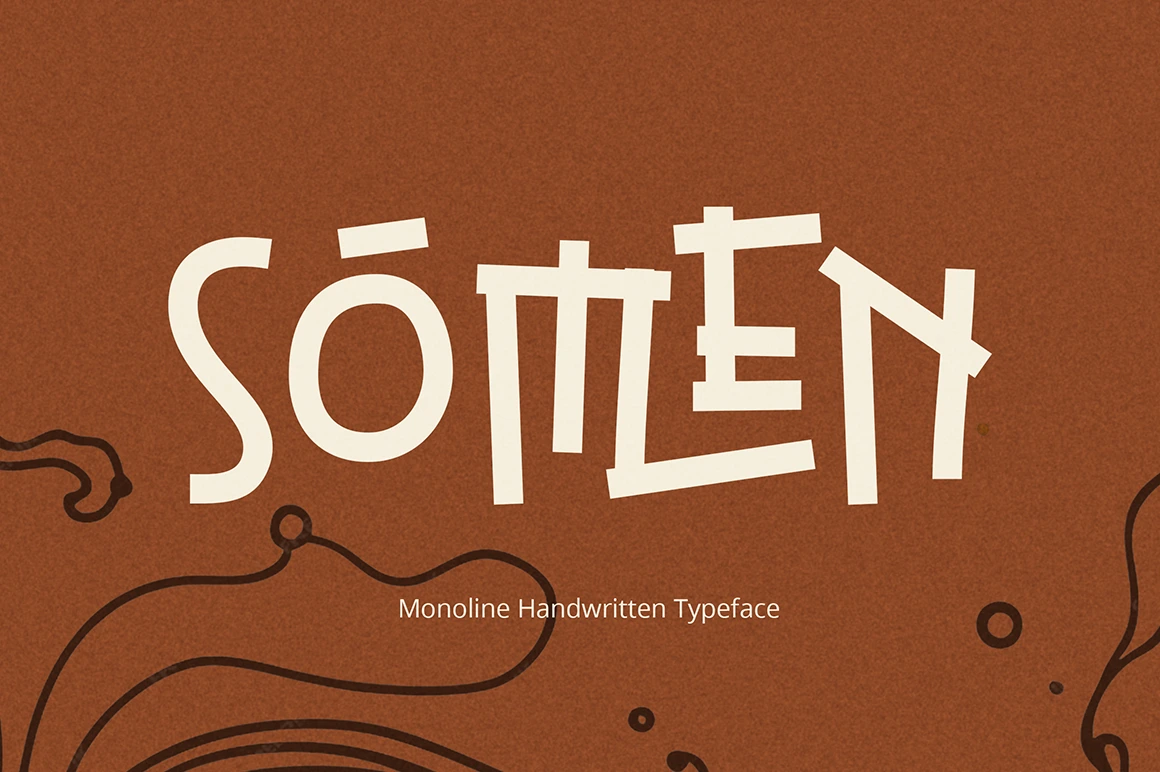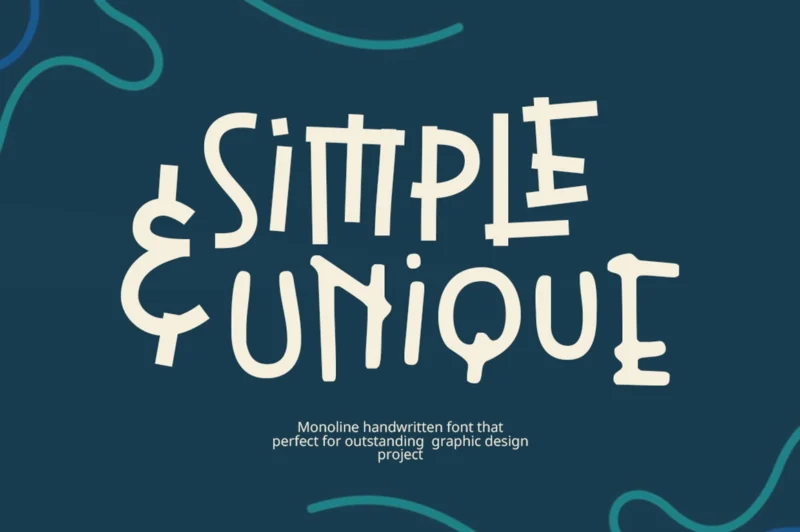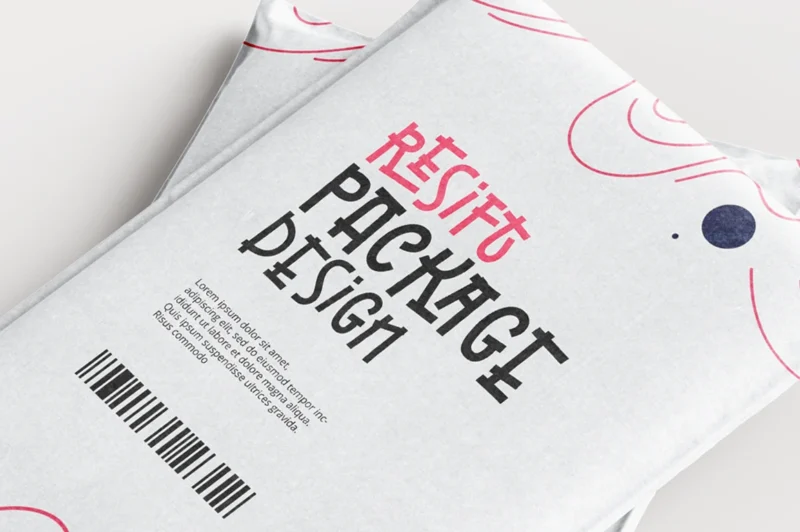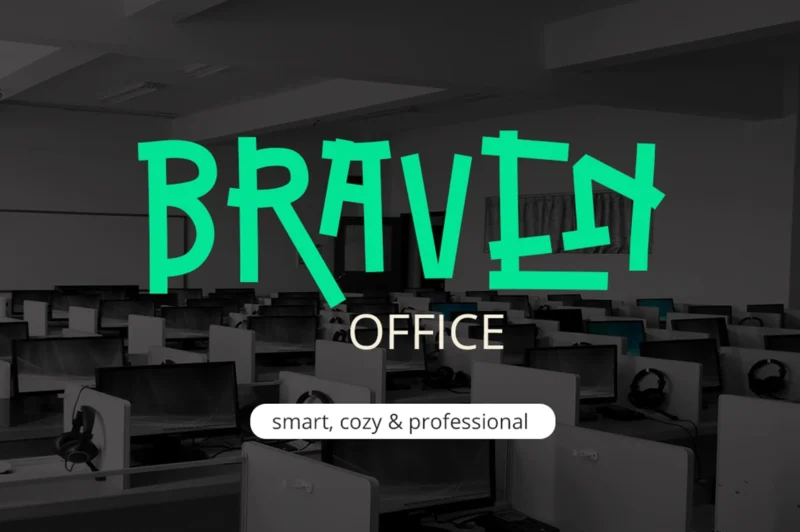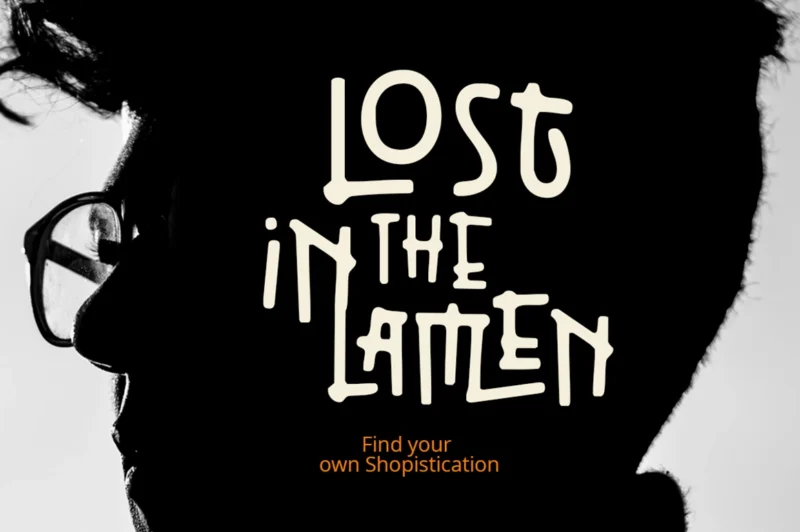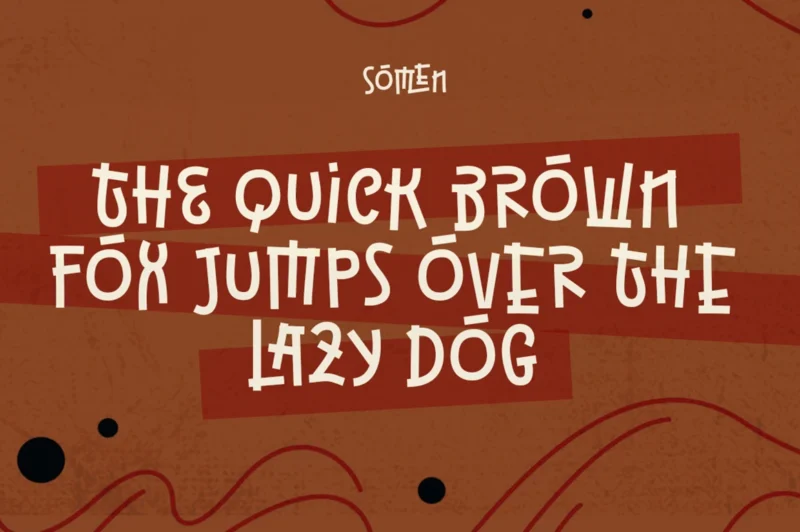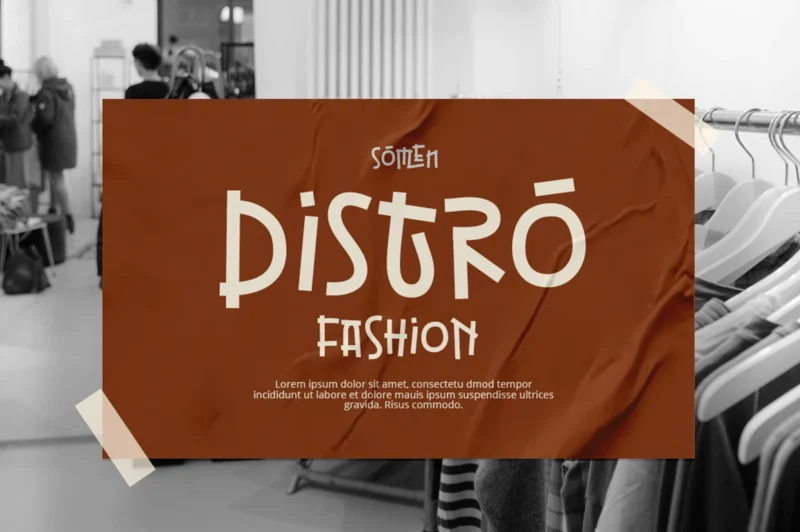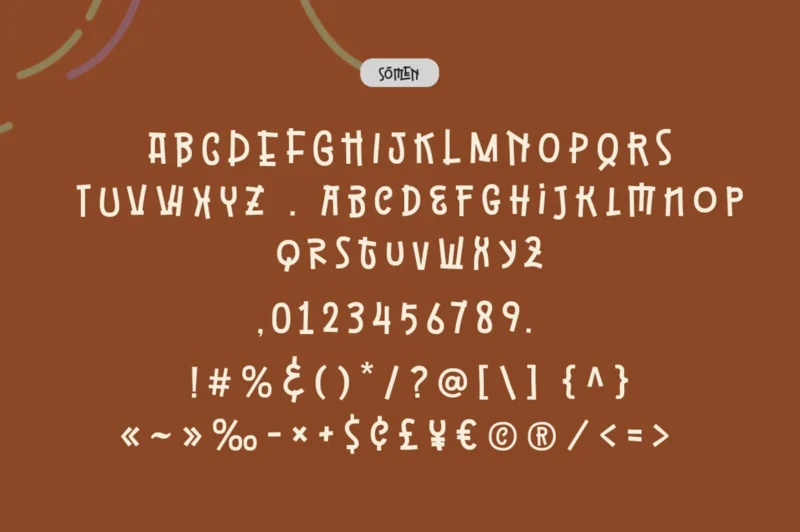
Somen Regular
Somen Blur
Somen is a playful monoline handwritten typeface that blends simplicity with artistic character. Inspired by natural strokes and organic forms, Somen delivers a warm, friendly, and slightly whimsical feel. Its clean single-line structure keeps the design modern and minimal, while the subtle irregular shapes add personality and handcrafted charm. Perfect for branding, packaging, editorial headlines, posters, social media graphics, and creative projects that need a distinctive yet approachable touch. Somen stands out effortlessly while maintaining readability and balance. Bring a fresh, expressive voice to your designs with Sōmen — where minimal meets character.
Features:
• Monoline Handwritten Font
• All Caps Font
• Expressive Ligatures
• Basic Latin Glyphs
• Modern and Unique
• Numeral and Punctuation
• Currencies
• Multilingual Support
Somen – Monoline Handwritten Font